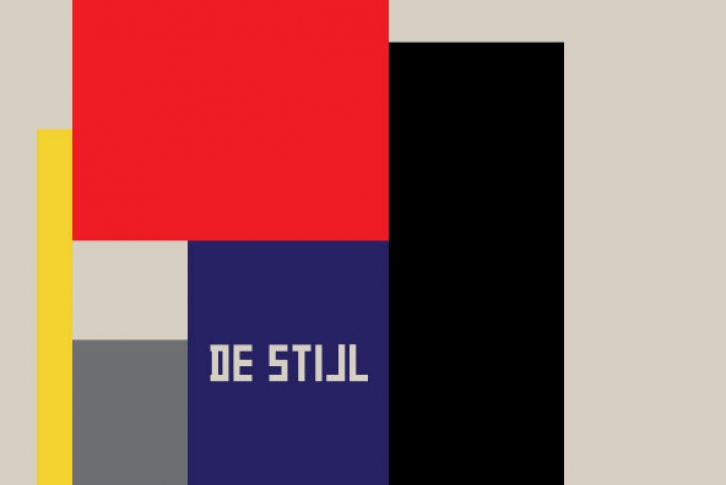
The Dutch De Stijl movement (1917-1931) sought to create an art which took abstraction to its logical extreme, as exhibited in the paintings of Piet Mondrian. Inspired by the movement's philosophy of pure form, P22's De Stijl set features three rigid, balanced, and angular fonts and a set of geometric extras.
The four fonts in the De Stijl font set were inspired by the geometric art and typography of the Dutch De Stijl Movement, 1917-1931. "Regular," "Tall," and "Stencil" are letter forms reduced to their simplest angular components. The Philosophy of the De Stijl called for a purity of form which reduced all graphic elements to their most basic components. With this limitation of subject matter, artwork would be viewed solely for its compositional value.
"Extras" is set of "dingbats" originally created as a proposed set of pictorial symbols for city landmark identification.The Artists of the De Stijl: Piet Mondrian, Bart Van Der Leck, Theo Van Doesburg, Karl Peter Roehl, and others, sought to create an art which took abstraction to its ultimate end. Along with the Constructivists, the Dadaists, and the Bauhaus, the De Stijl strived to liberate art from the confines of the past and integrate art more fully with everyday life. Much of the work done by these groups in the early 20th Century has become the basis for a large portion of current design work.
Technical Notes: These fonts are intended to be used as headline fonts. They are best viewed at large point sizes and generally not suited as a body text. The strict angular nature of these fonts limits their ease of readability. "Regular" and "Tall" each have approximately 200 characters to accommodate several foreign languages.
Upper and lower case letters are identical with the exception of the "Stencil" font which offers an alternative A, V, and W in the lower case positions. This option is offered due to the 45 degree angles, which do not align well in programs where kerning is not recognized (such as most word processing programs).
These font sets were created by Richard Kegler and Michael Want of P22 type foundry.